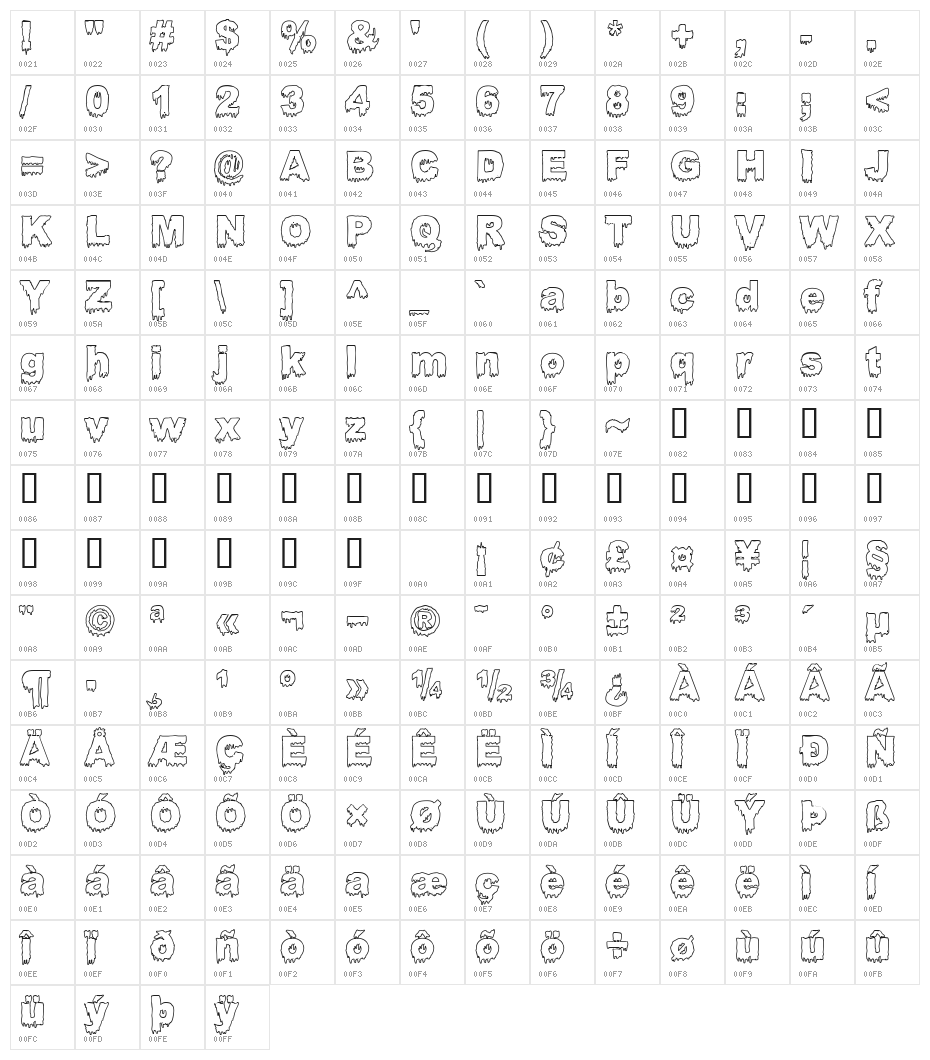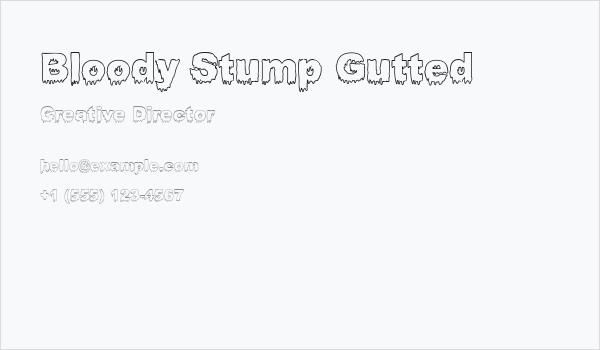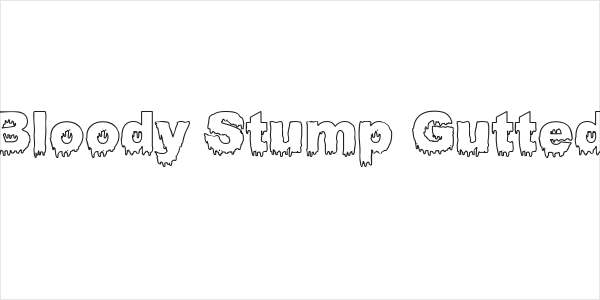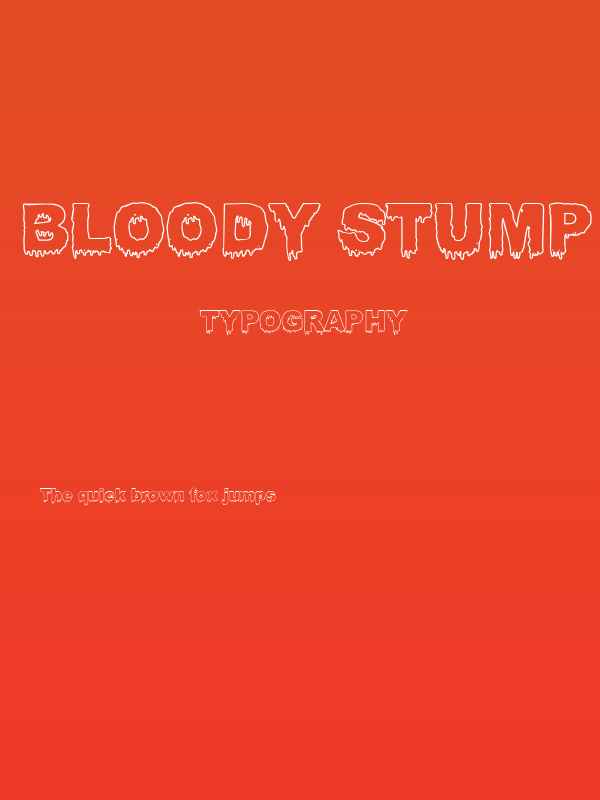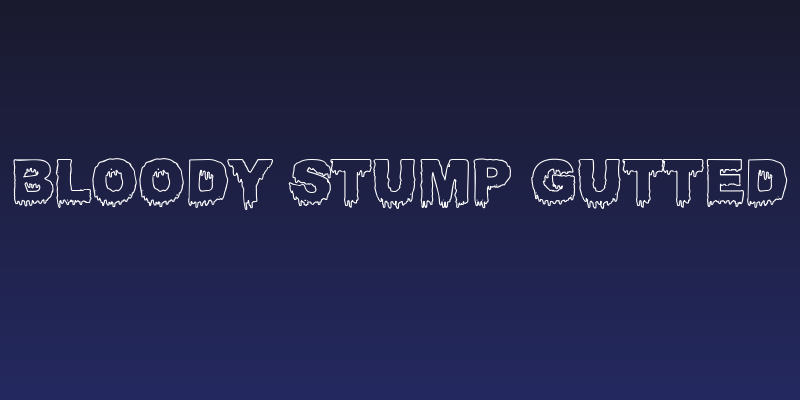
Bloody Stump Gutted Font
Bloody Stump Gutted Description
This font features a unique and eerie design, with each character appearing as if it is dripping or melting. The letters have a bold and thick outline, giving them a strong presence on the page. The irregular, jagged edges of the characters contribute to a horror or Halloween-themed aesthetic, making it ideal for projects that require a spooky or unsettling vibe. The font maintains a consistent style across uppercase, lowercase, numbers, and special characters, ensuring a cohesive look. Its distinctive appearance makes it stand out, perfect for eye-catching designs.
| Proposed Projects | Halloween invitations, horror movie posters, haunted house flyers, spooky-themed merchandise. |